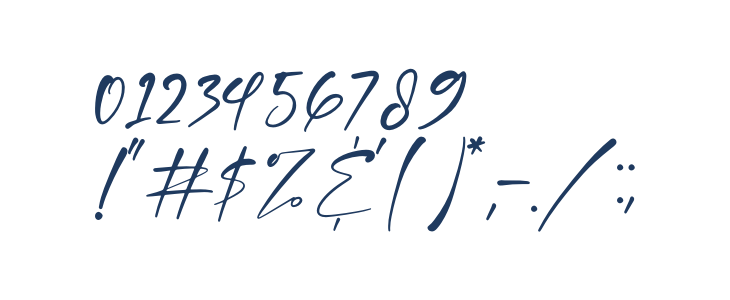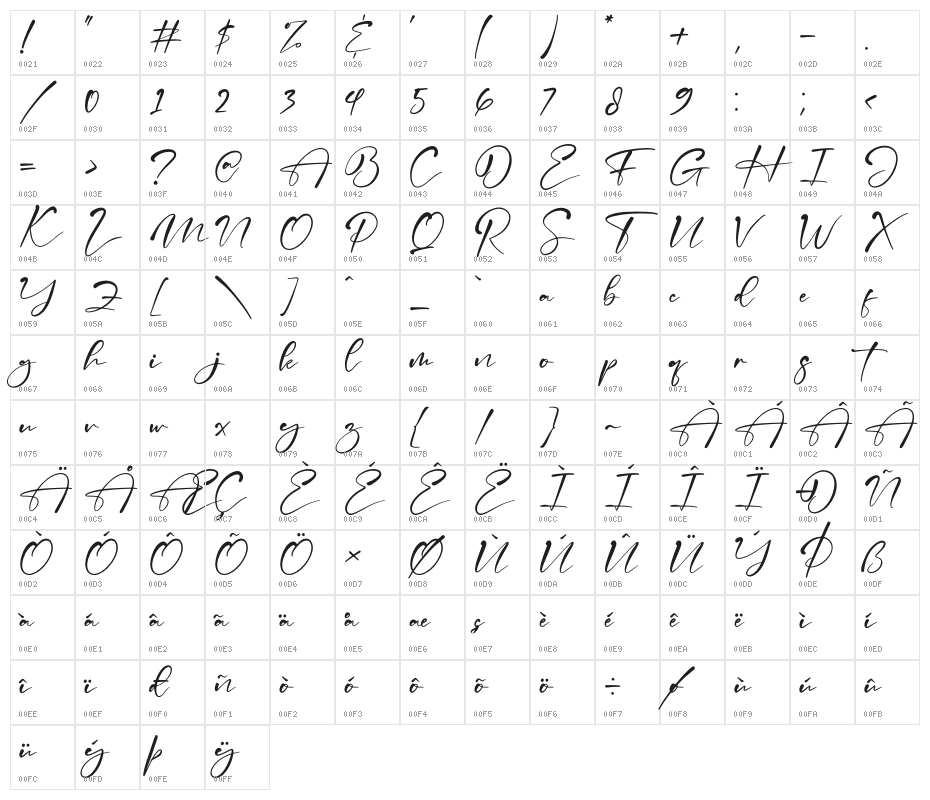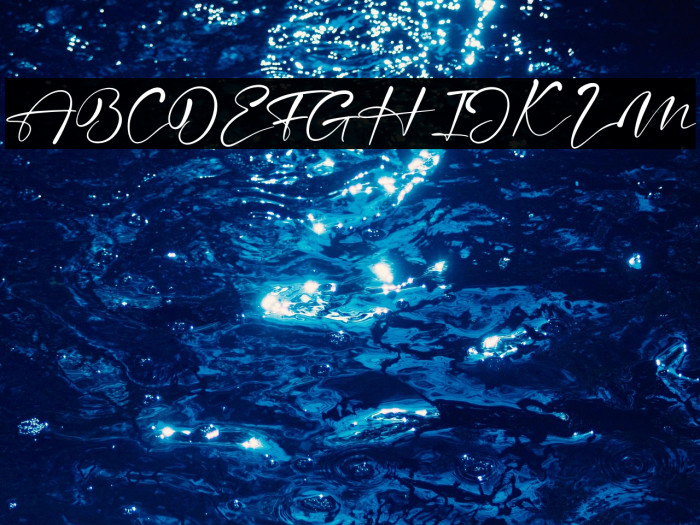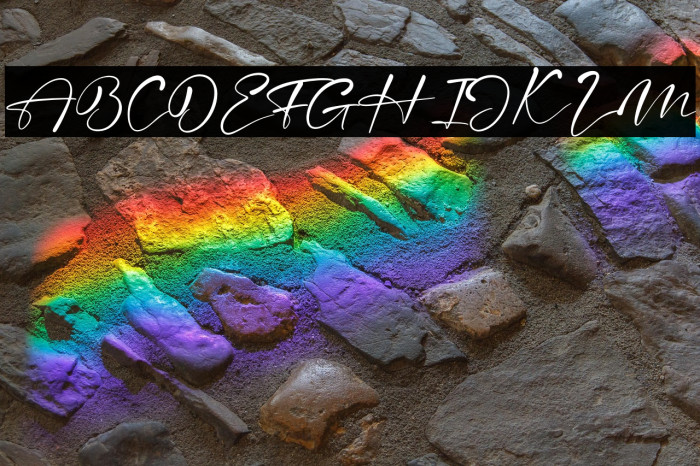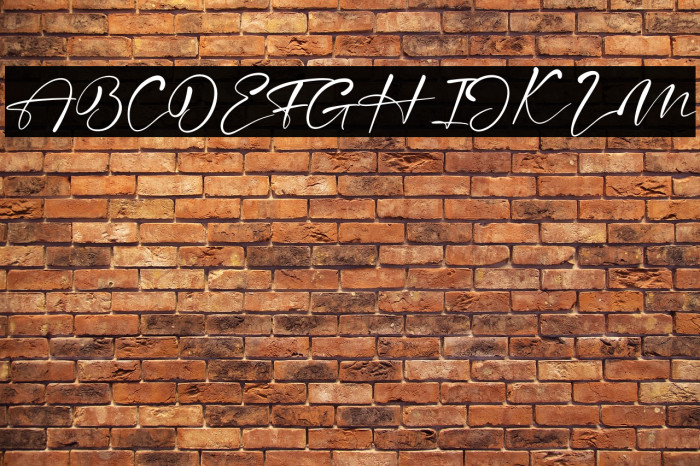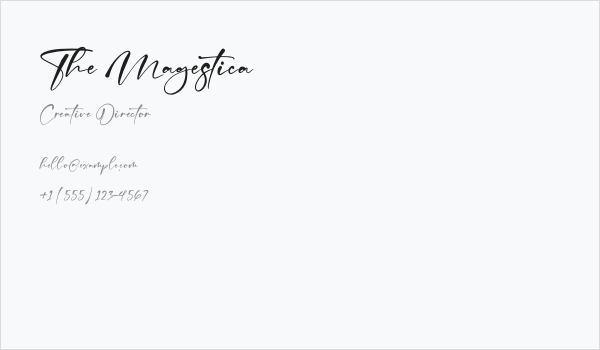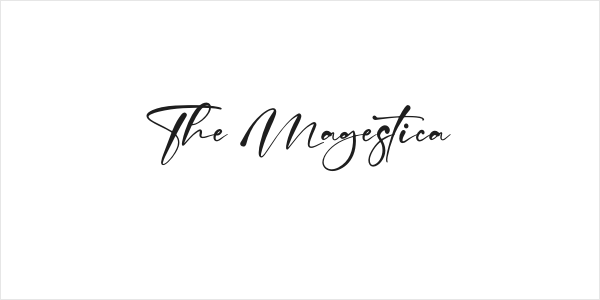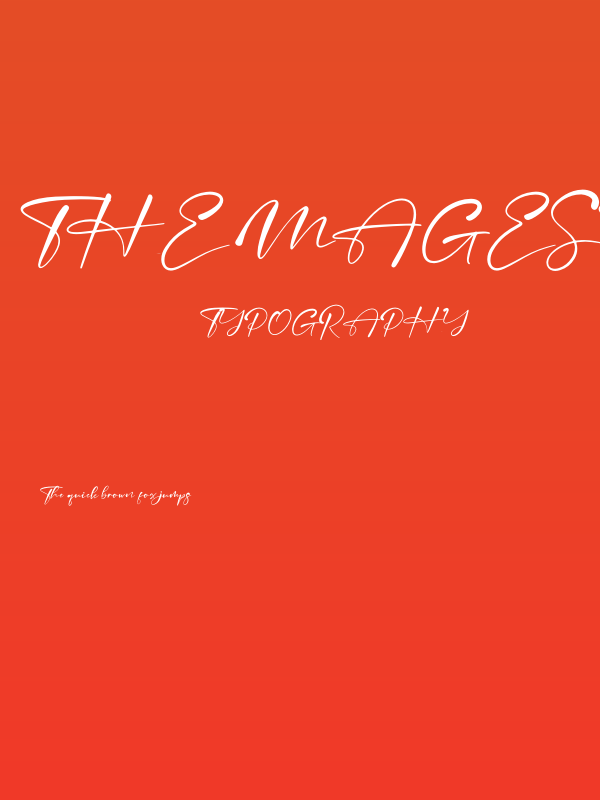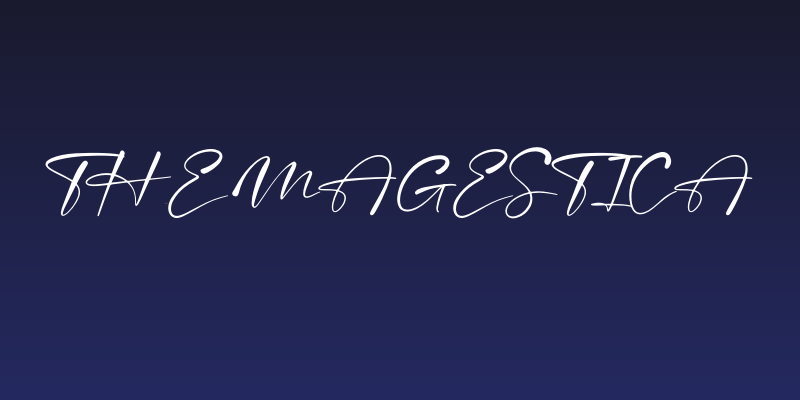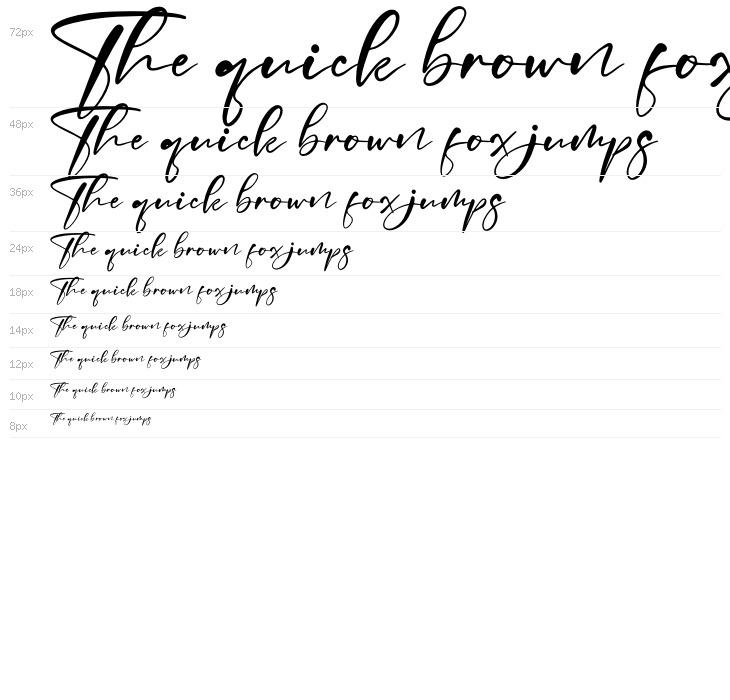
The Magestica Font
The Magestica Description
This font exudes an elegant and flowing script style, characterized by its smooth, cursive strokes and graceful curves. The uppercase letters are designed with a sophisticated flair, featuring elongated lines and subtle flourishes that add a touch of refinement. The lowercase letters maintain a consistent flow, with each character seamlessly connecting to the next, creating a harmonious and fluid appearance. The numerals and special characters are crafted with the same attention to detail, ensuring a cohesive look throughout. This font is perfect for projects that require a touch of elegance and sophistication, such as wedding invitations, branding, and high-end product packaging.